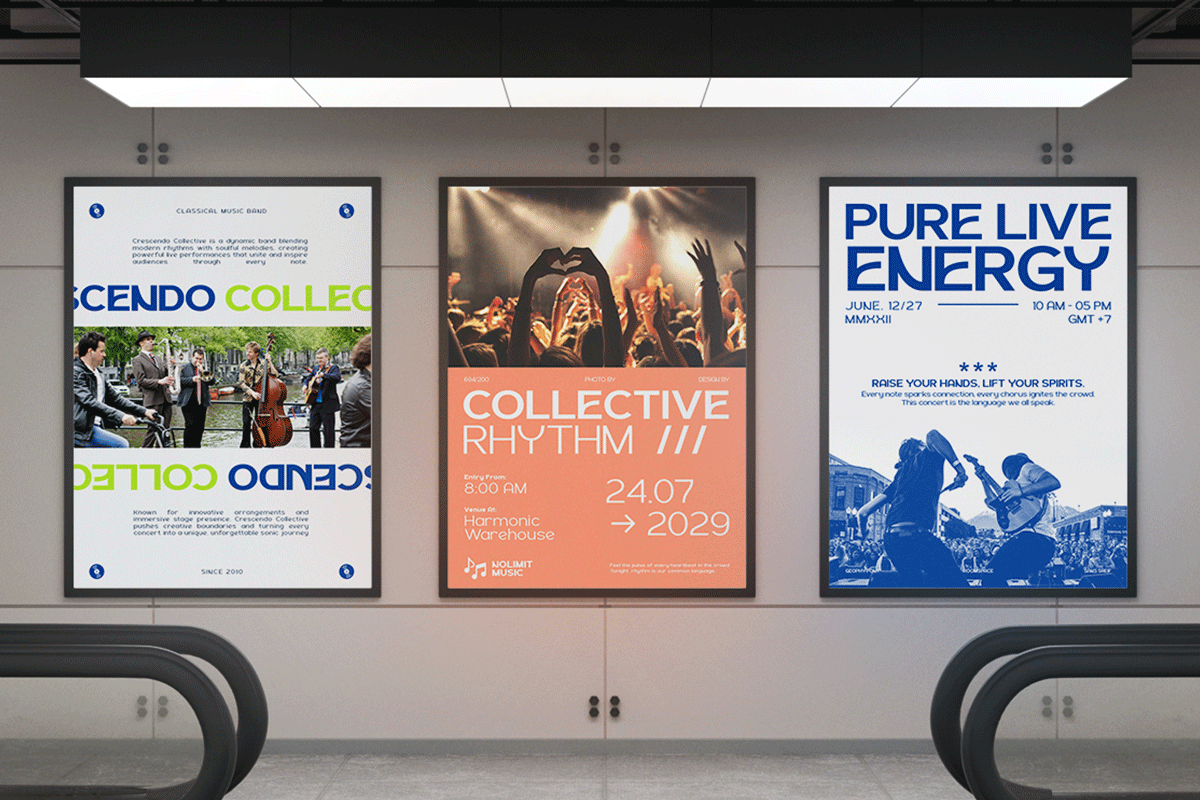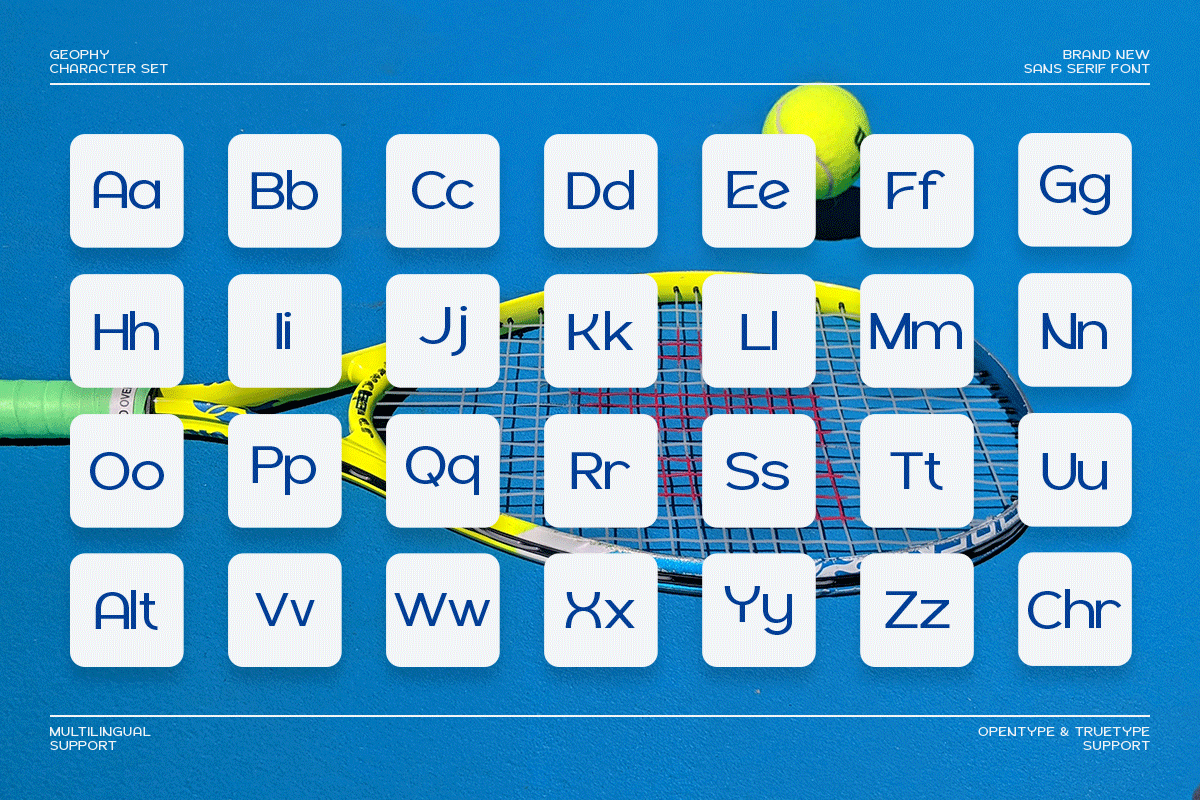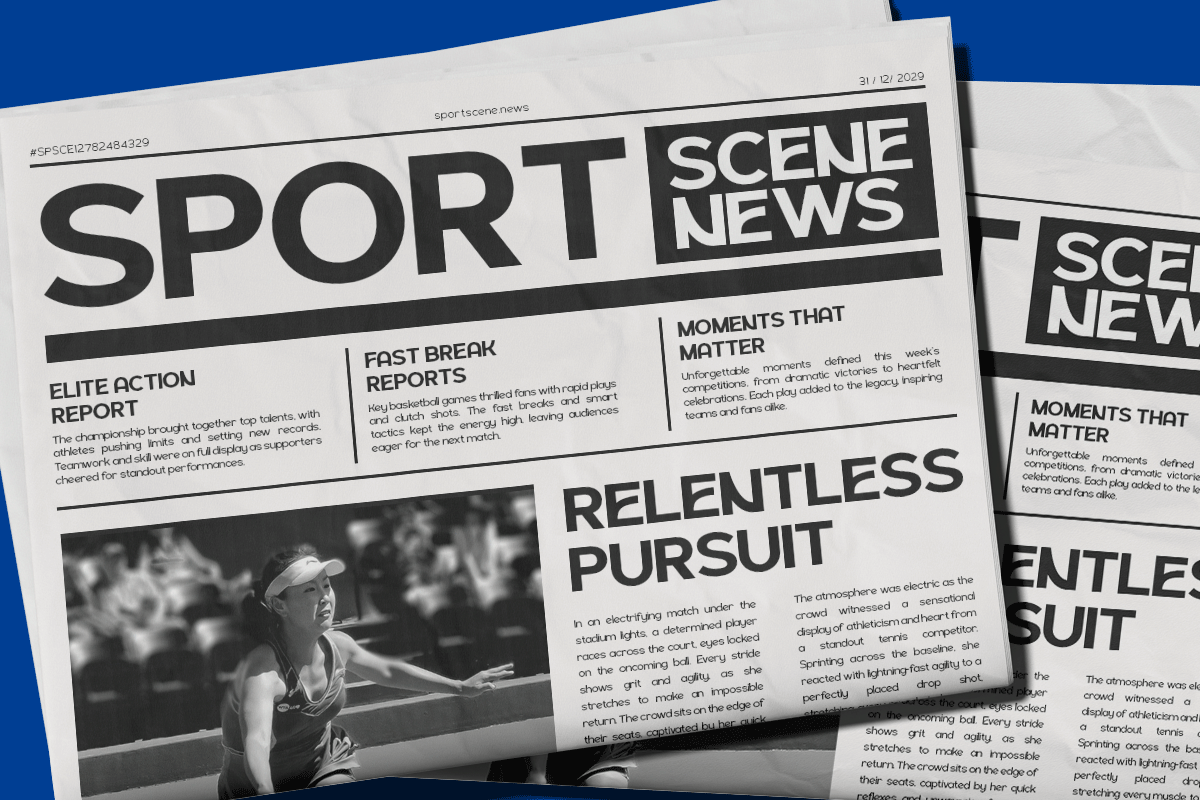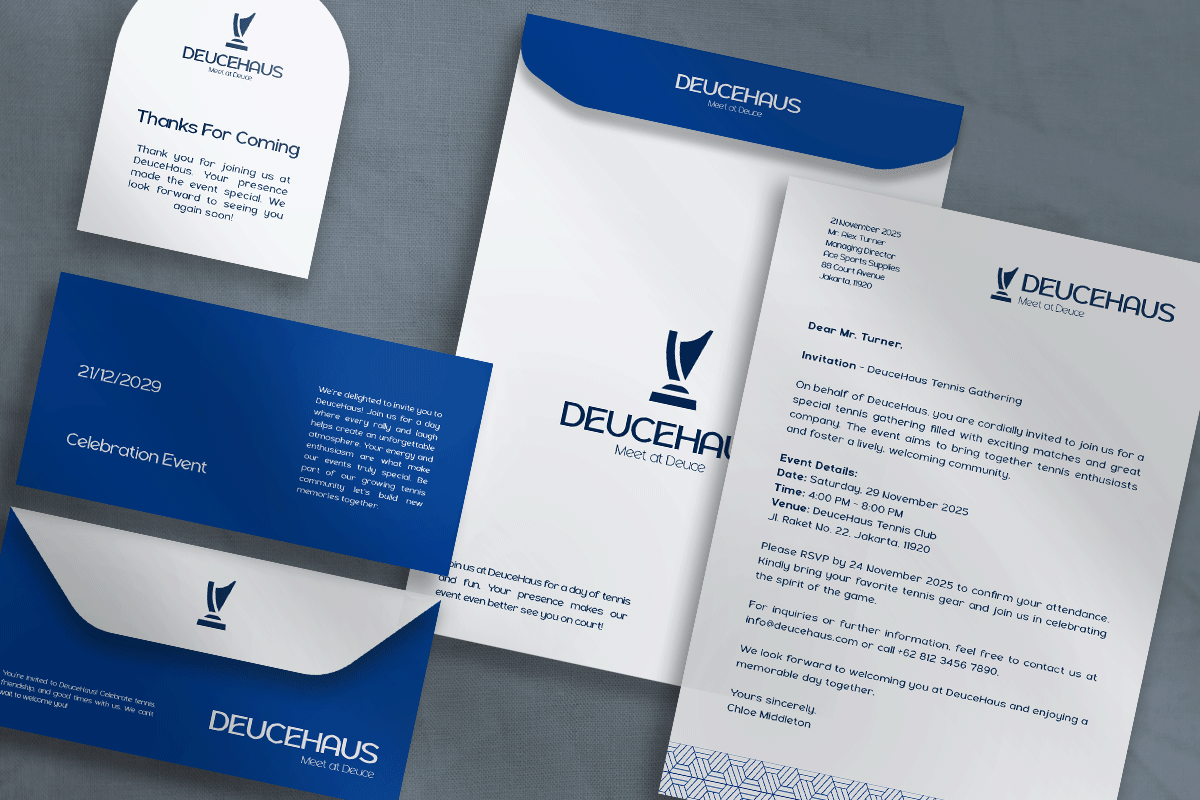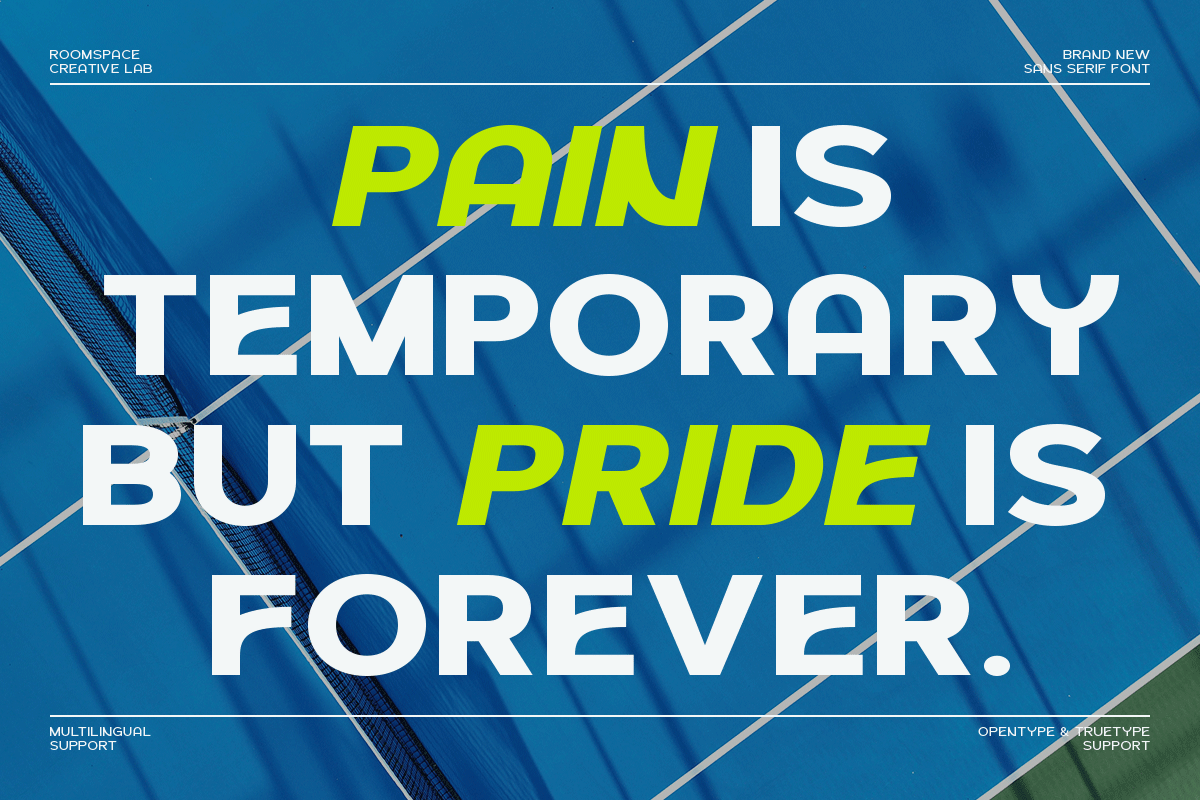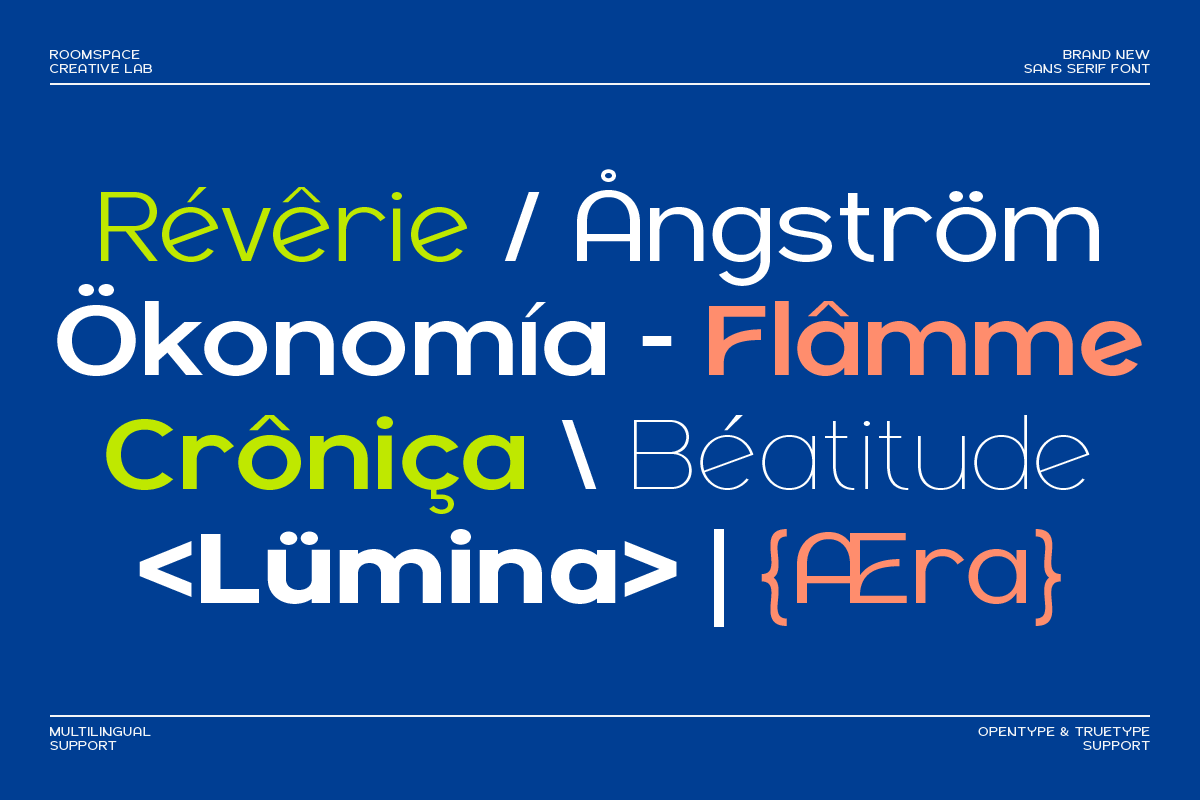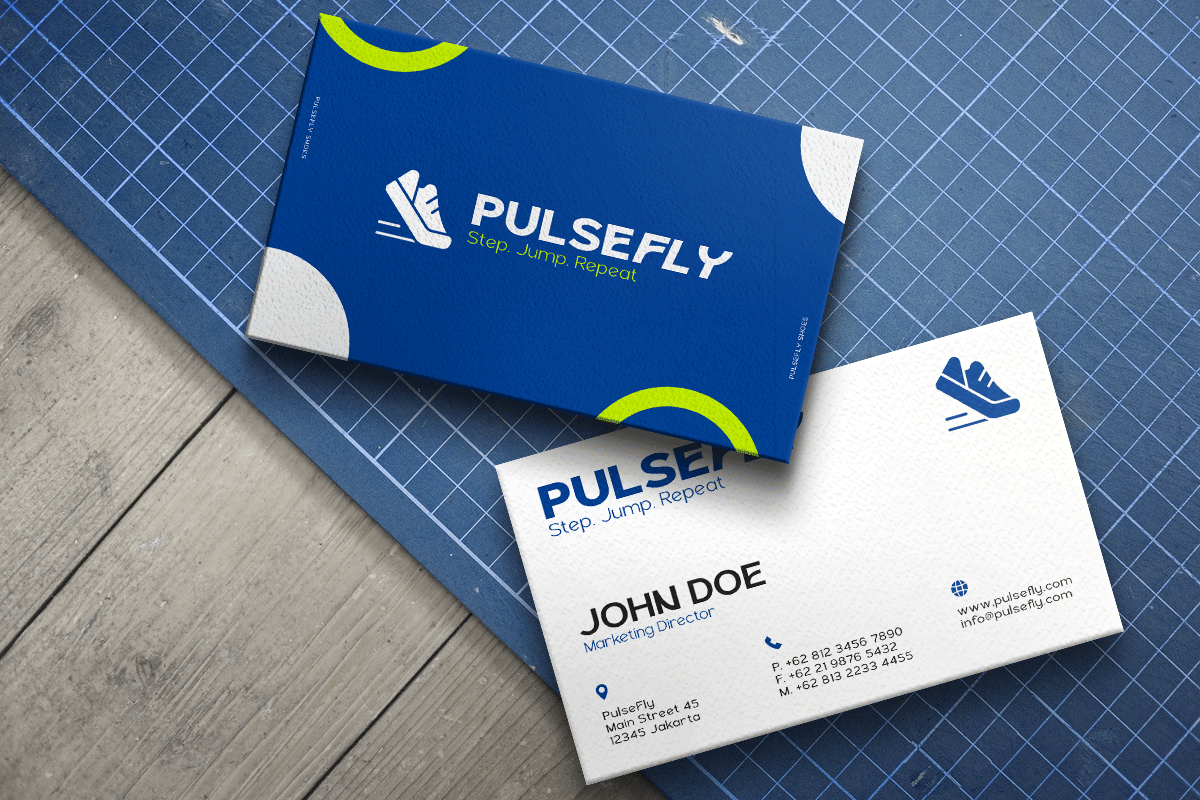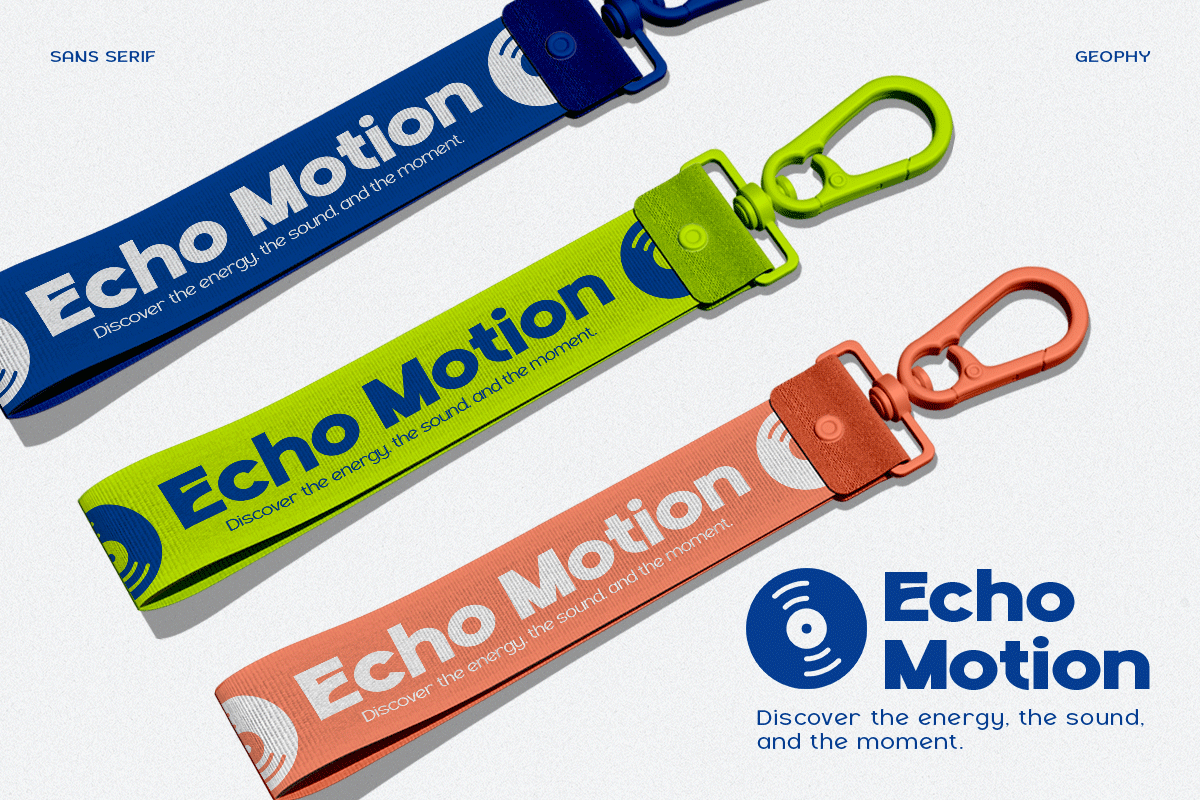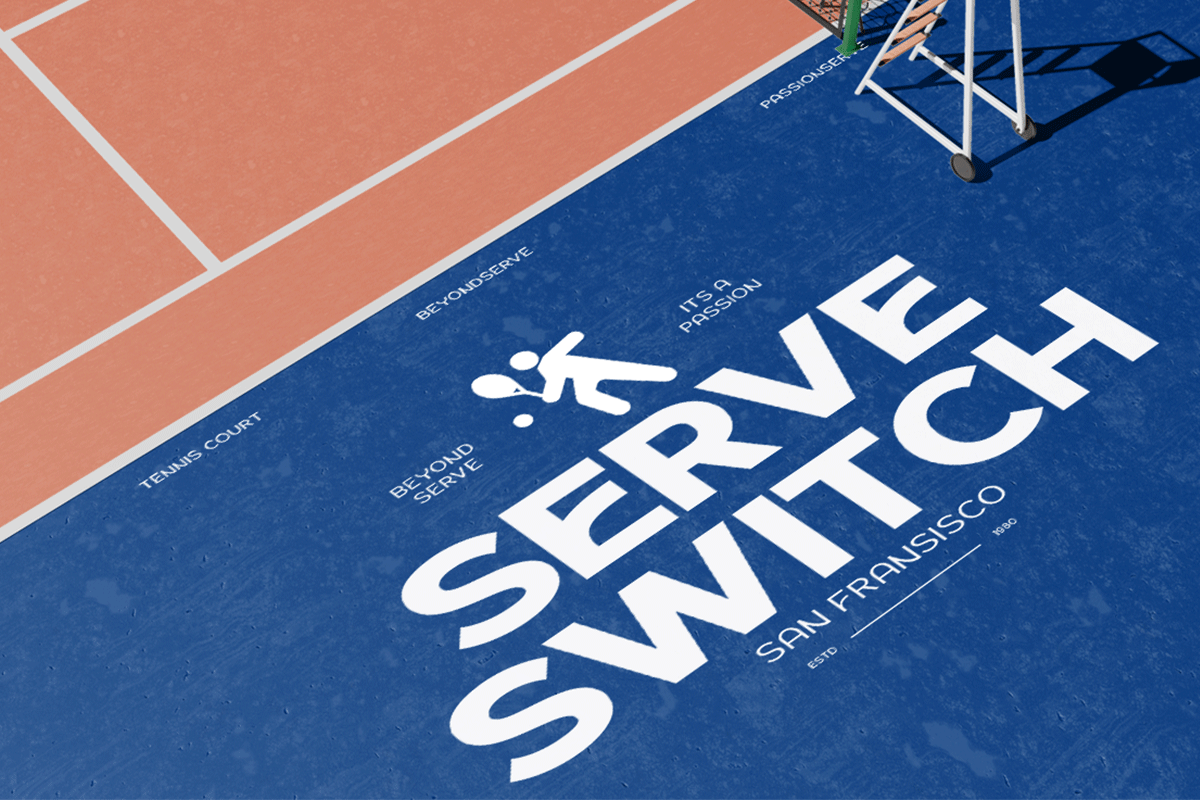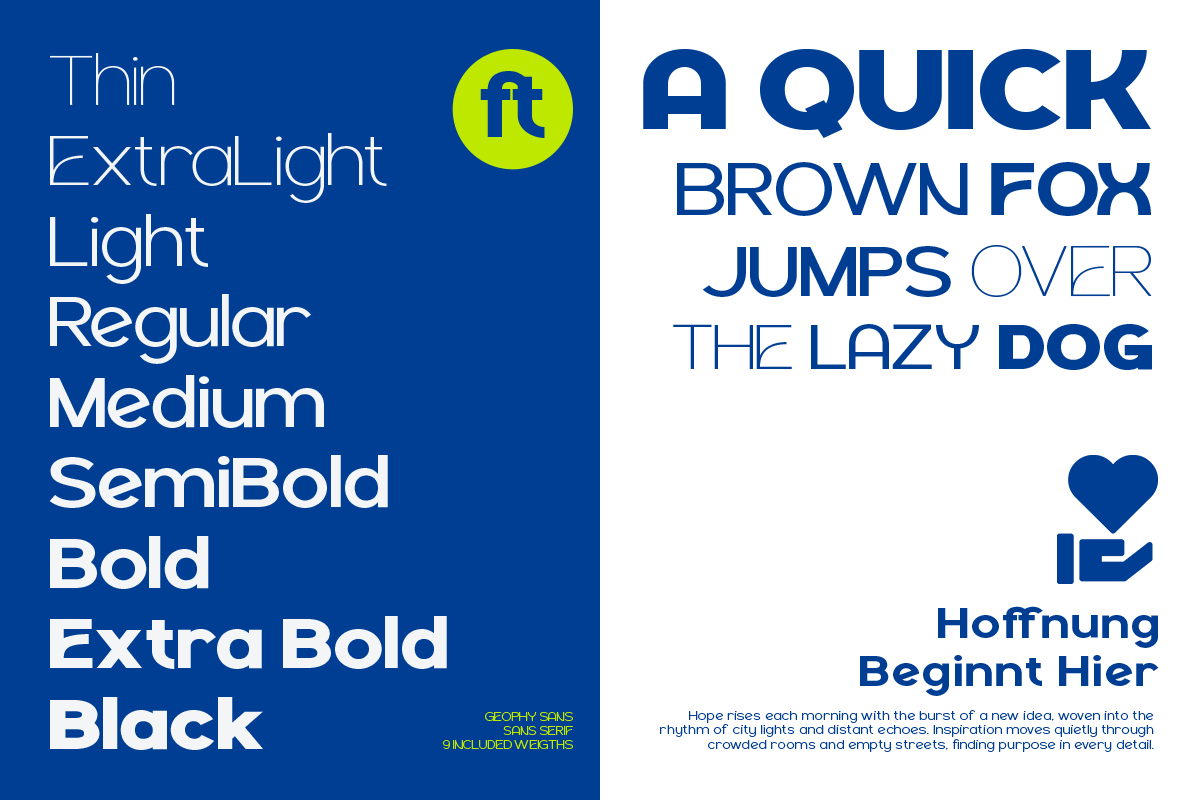
Geophy Sans – A Bold Modern Sport
Sporty, bold, and modern a sans-serif built for strong visual impact. Inspired by athletic courts and dynamic design languages, Geophy Sans communicates confidence, precision, and fast-paced energy. Best for branding, sports industry, apparel, UI design, urban campaigns.
Geophy Sans is a bold modern sans-serif font inspired by the geometry and movement of urban sports culture. Designed for high-impact visuals, it delivers strong readability with clean precision perfect for branding, posters, apparel, headlines, and dynamic layouts. Featuring 9 styles from Regular to Extra Bold, Geophy Sans adapts beautifully to professional typography needs across digital and print.
- 9 Font weights and include italic
- Optimized kerning
- Perfect for large headlines & sport branding
Perfect For: Sport brands, product packaging, gym & fitness ads, streetwear, UI, event posters, and signage.